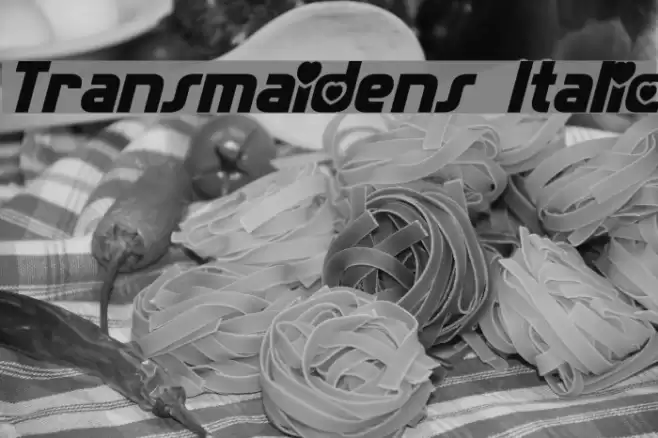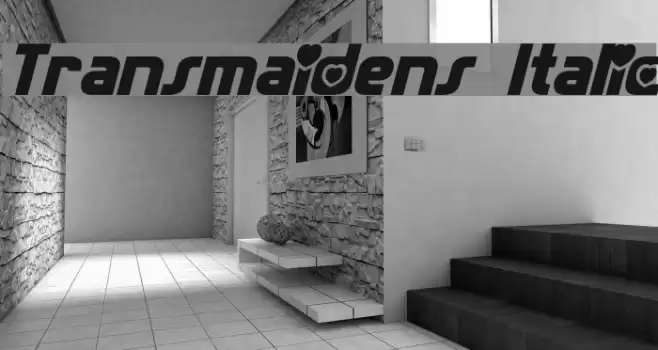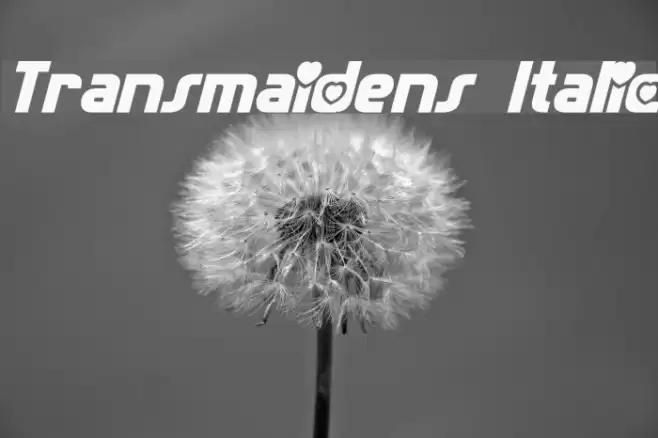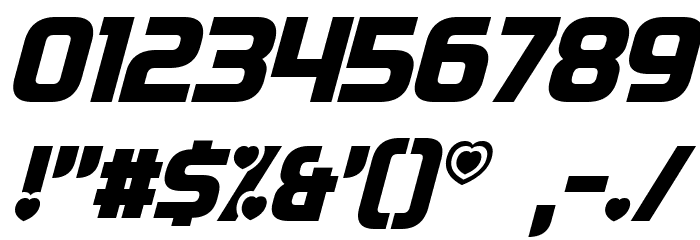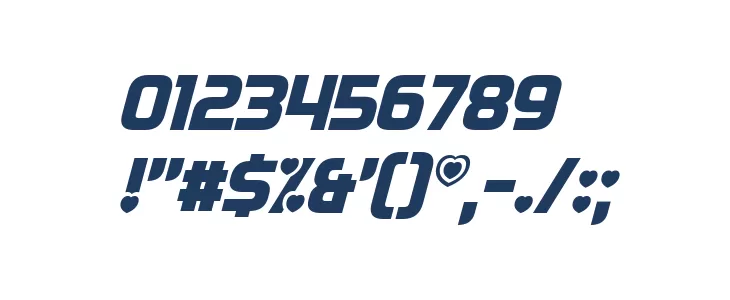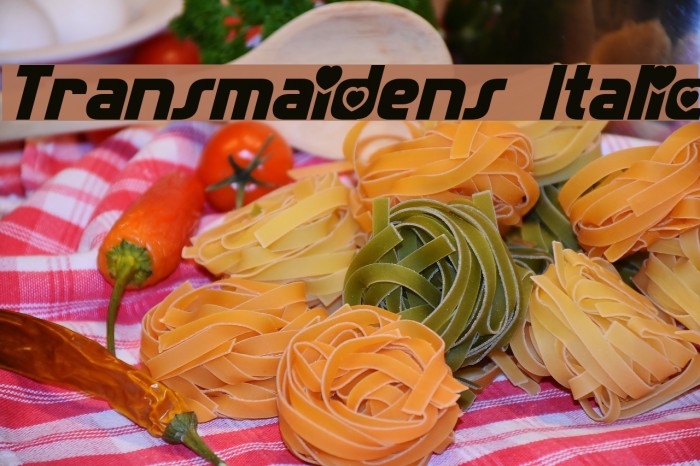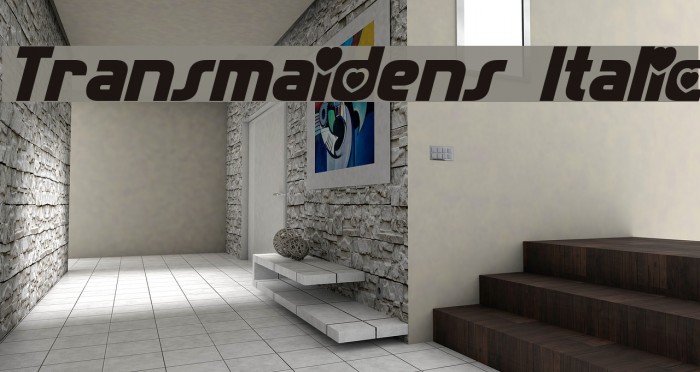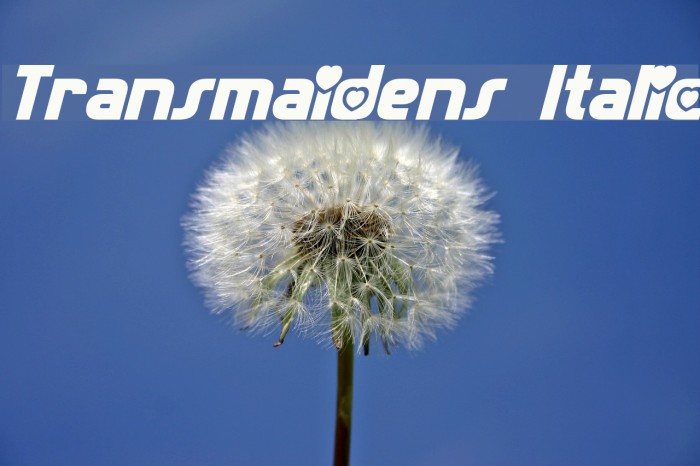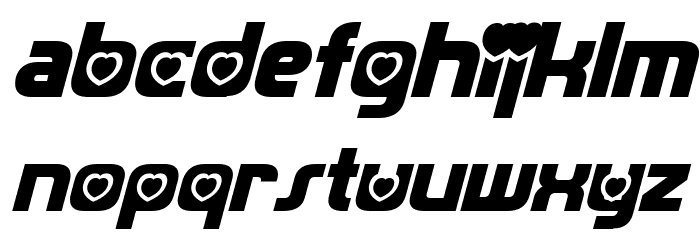
Transmaidens Italic Font
Transmaidens Italic Description
This font features a bold and playful design with a unique heart motif integrated into several characters, adding a whimsical touch. The letters are italicized, giving a sense of motion and dynamism. The overall appearance is modern and eye-catching, making it suitable for creative and fun projects. The characters are well-defined with a consistent stroke width, providing a clean and structured look. The numbers and special characters maintain the same playful style, ensuring a cohesive appearance across all elements.
A bold, italicized font with heart motifs and a playful, modern style from Uncategorized fonts.
- Proposed Projects: Ideal for greeting cards, children's books, playful branding, and event invitations.